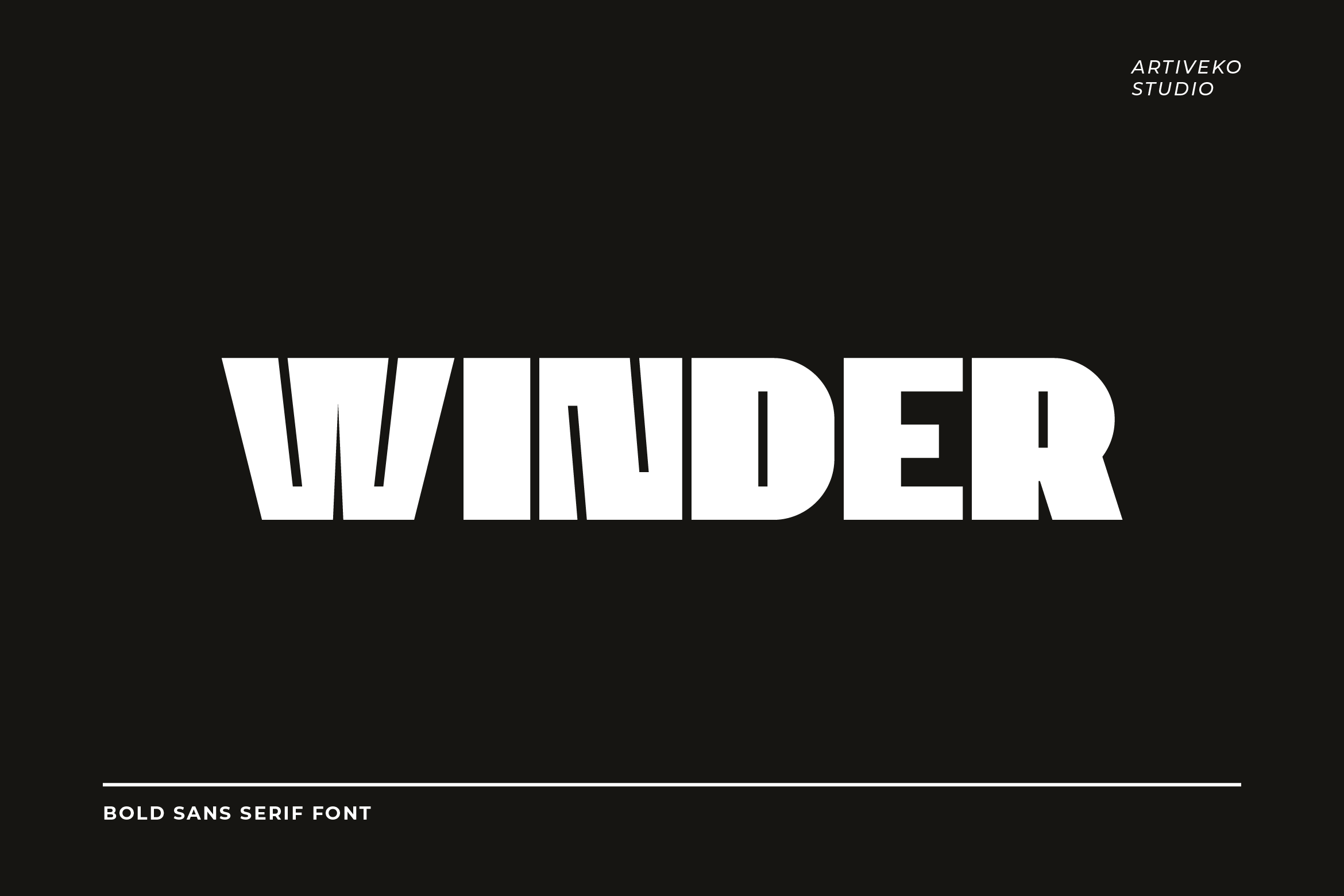
- Winder Powerful Sans Serif Font
Winder is a powerful sans serif font designed to make a bold statement. With strong letterforms, sharp lines, and balanced proportions, Winder brings a sense of confidence and authority to any design. Its modern yet timeless aesthetic makes it perfect for branding, headlines, posters, sports graphics, apparel, and impactful digital content.
The font’s clean construction ensures excellent readability across sizes, while its bold weight provides the impact you need for eye-catching titles. Winder includes uppercase and lowercase letters, numerals, punctuation, multilingual support, and a set of stylistic alternates for creative flexibility.
Ideal for projects that demand power and clarity, Winder delivers strength without sacrificing style. Whether you’re building a brand identity or creating dynamic marketing visuals, this font brings an undeniable presence.
Make every word stand out with Winder — the strong sans serif built for bold design.